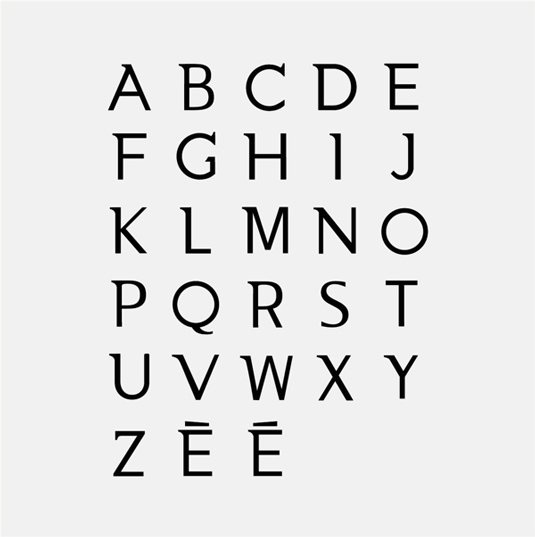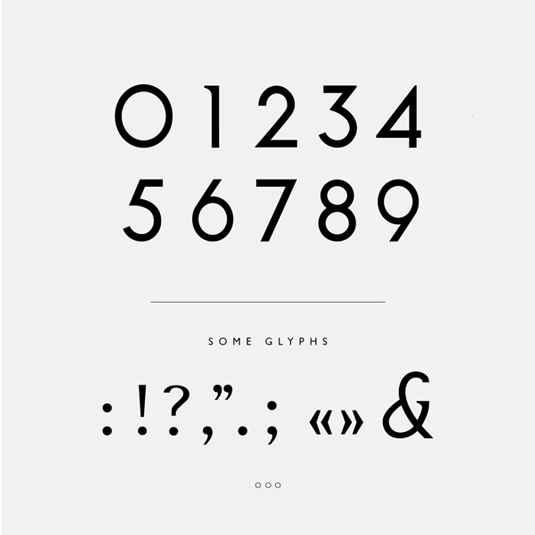
Font of the day: NOOA
NOOA by Antoine Pilette
Created by Antoine Pilette, the graphic designer describes his font NOOA as "a subtle mix between the classic serif and sans serif fonts, for a contemporary use".